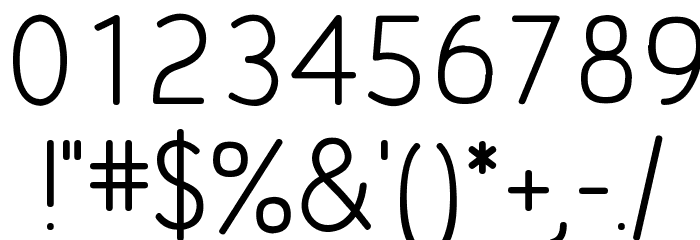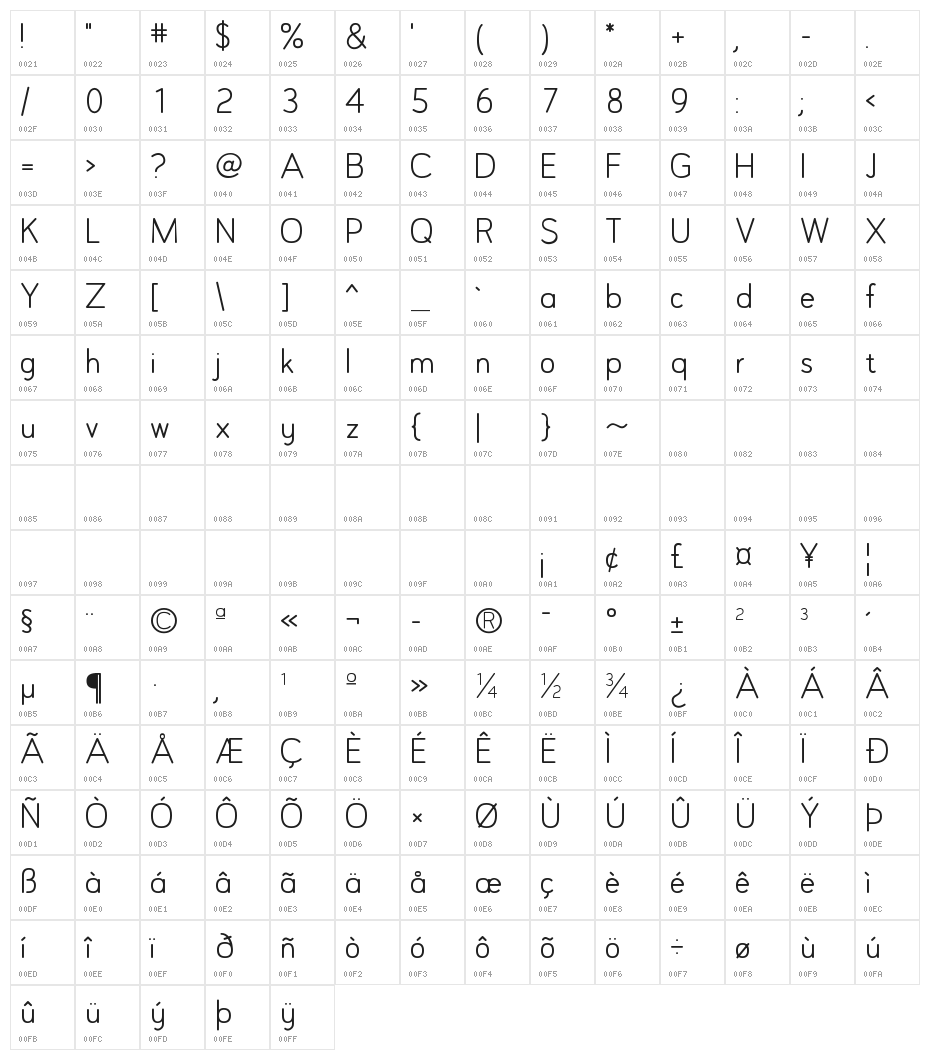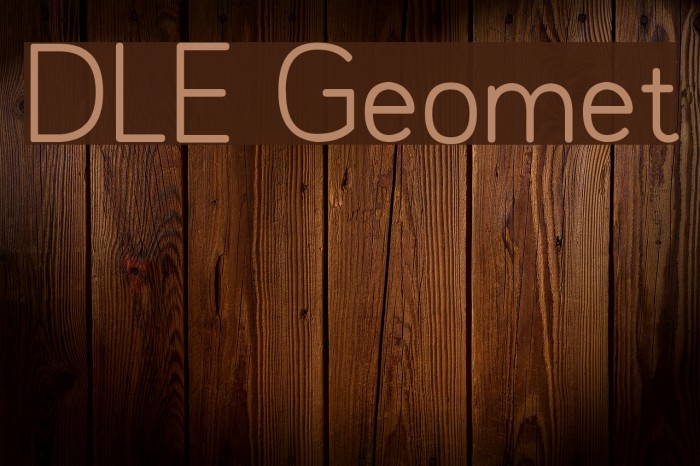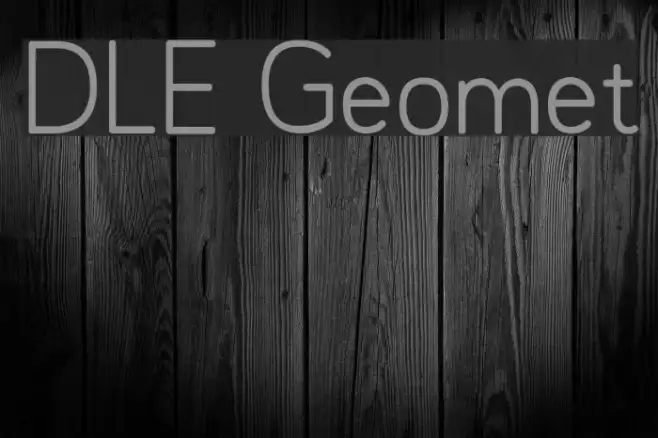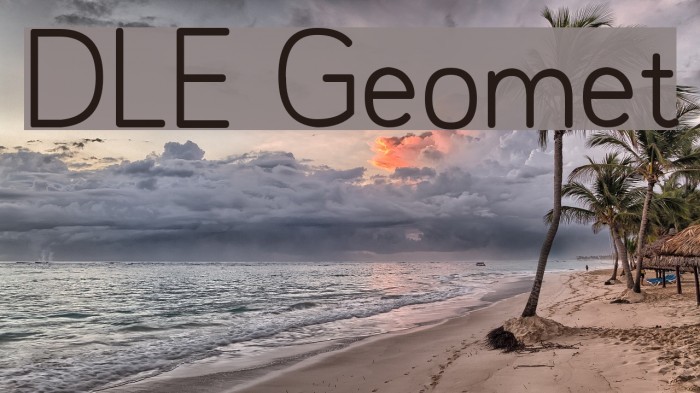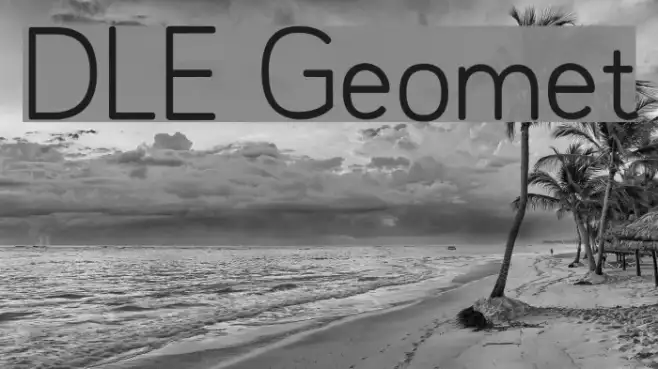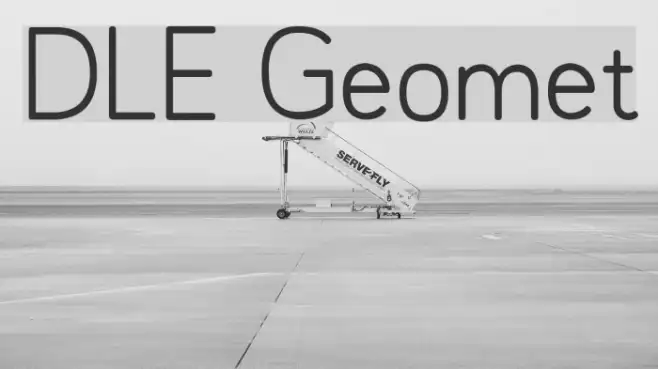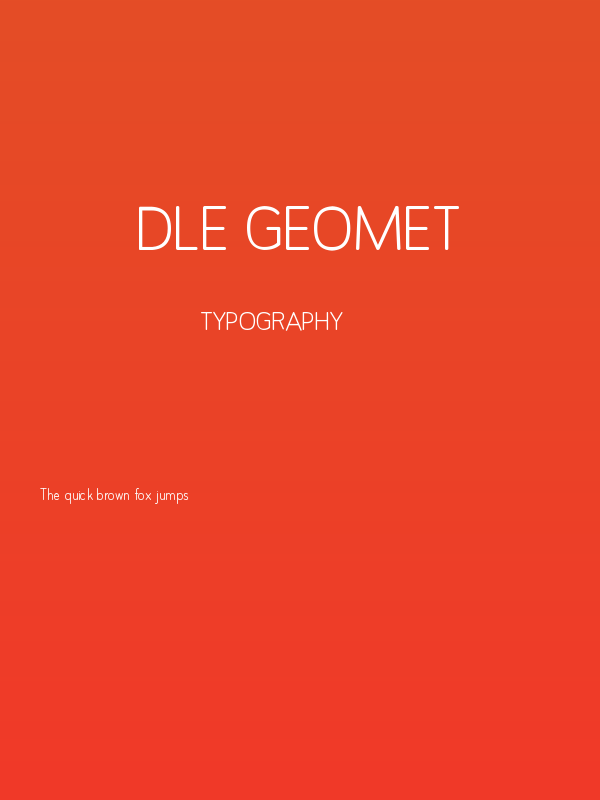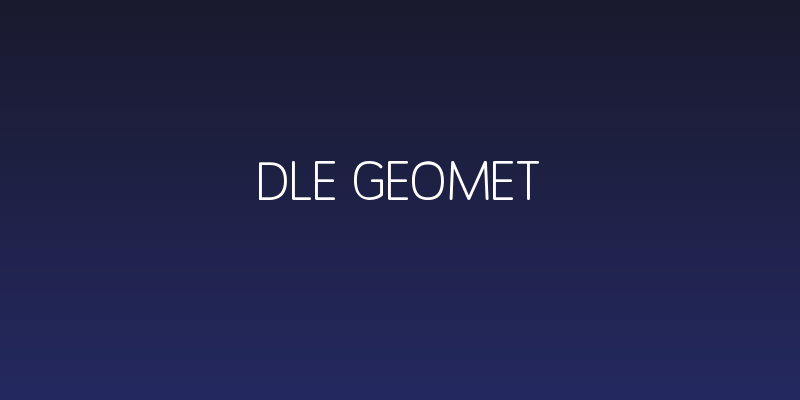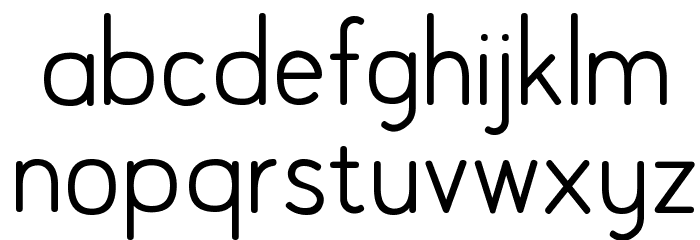
DLE Geomet Font
DLE Geomet Description
This font features a clean and modern sans-serif design with geometric influences. The characters are uniform in width, creating a harmonious and balanced appearance. The uppercase letters are bold and assertive, while the lowercase letters maintain a friendly and approachable feel. The numerals are clear and legible, making them suitable for various applications. The special characters are well-integrated, ensuring consistency across all glyphs. The overall style is minimalist, with a focus on simplicity and readability, making it versatile for both digital and print media.
| Proposed Projects | Ideal for branding, web design, advertising, and editorial projects where clarity and modernity are essential. |